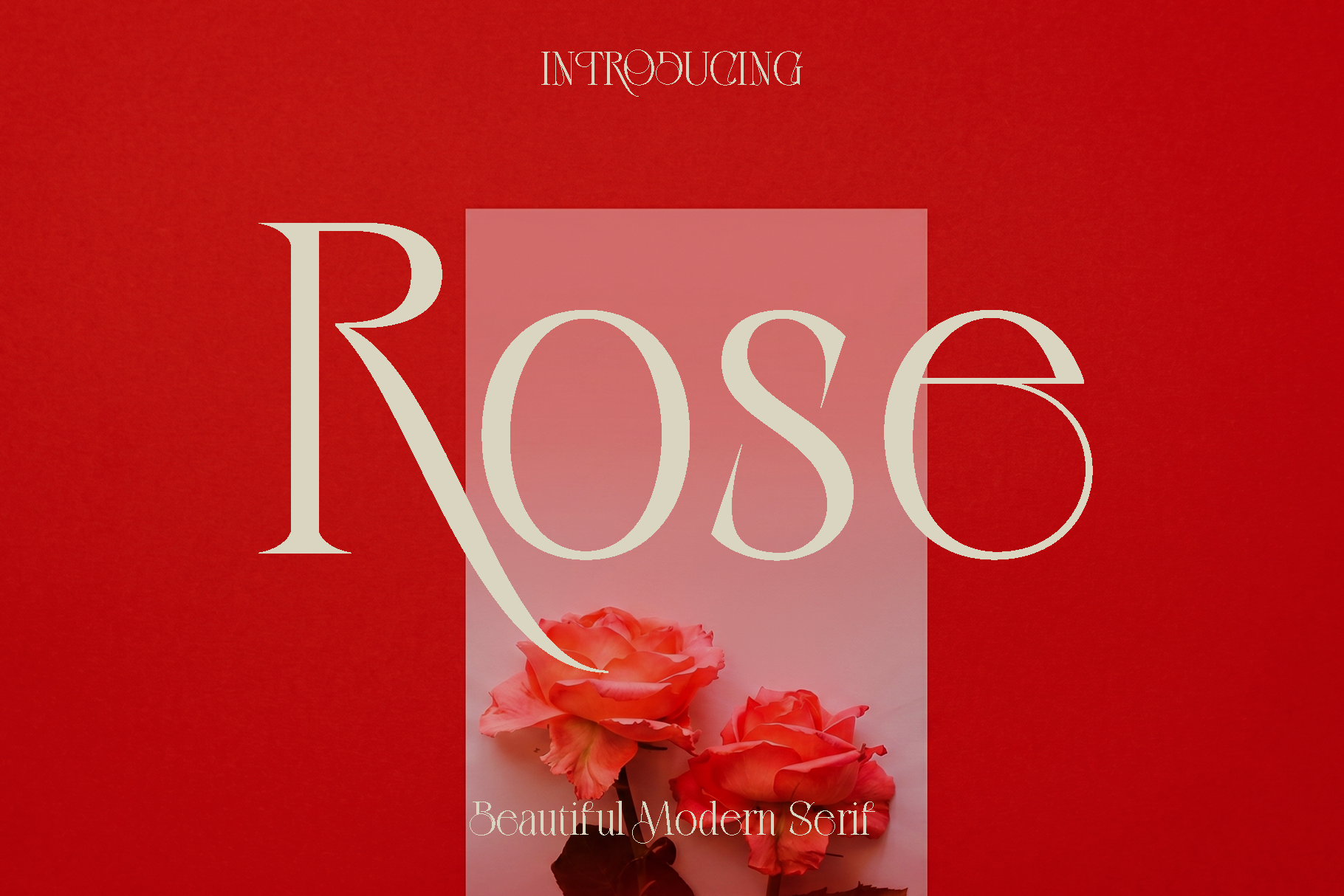
Rose - Modern Serif Font
Rose is a beautifully crafted display font that combines modern elegance with timeless vintage charm. Inspired by classic typography and refined artistic details, Rose was designed to bring warmth, beauty, and sophistication into every creative project. Its graceful curves and stylish letterforms create a unique personality that feels both nostalgic and contemporary, making it a versatile choice for designers who want typography with character.
This font shines beautifully in branding, logo design, packaging, invitations, fashion editorials, social media content, and decorative headlines. Whether you are creating a romantic visual identity, a luxury product label, or a stylish poster, Rose adds a soft yet striking presence that instantly captures attention. The balance between vintage aesthetics and modern structure gives your work a polished and memorable appearance.
Rose was carefully designed to offer flexibility and artistic expression. Its functional stylistic ligatures and multilingual support allow designers to create smooth, elegant typography with ease. Every character is crafted to maintain harmony and readability while adding a touch of personality and sophistication to your compositions.
With its elegant mood and timeless style, Rose is perfect for creatives who want to create designs that feel luxurious, expressive, and visually captivating. From digital branding to print materials, this font transforms ordinary text into beautiful typographic art.
Rose Font Features:
• Uppercase and lowercase characters
• Numerals and punctuation
• Multilingual support
• Functional stylistic ligatures
• Modern vintage aesthetic
• Elegant and versatile display style